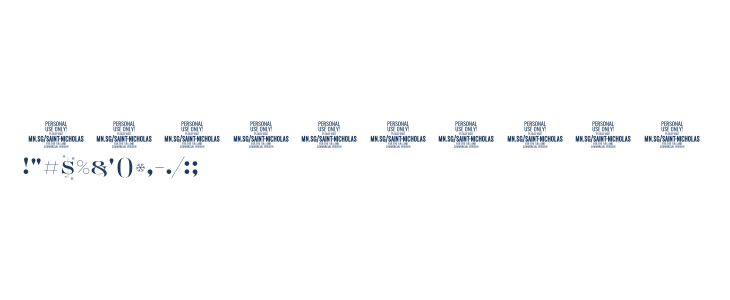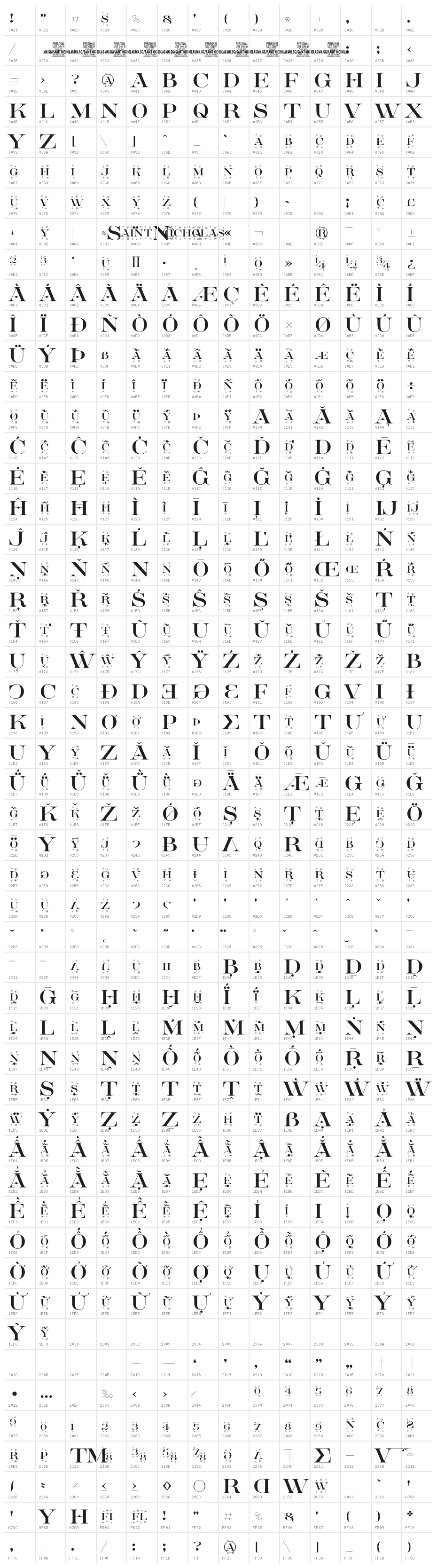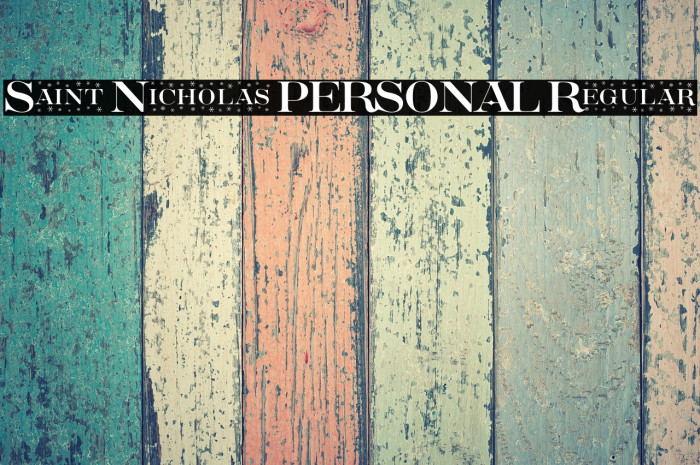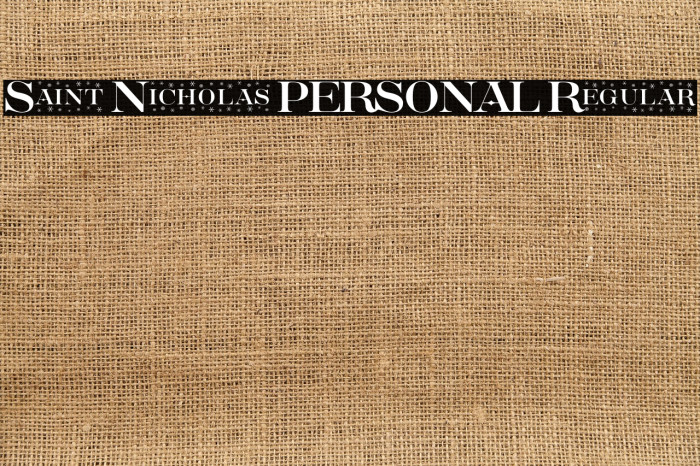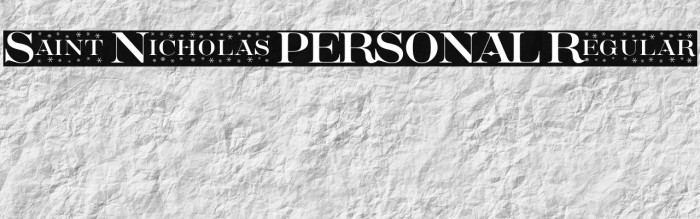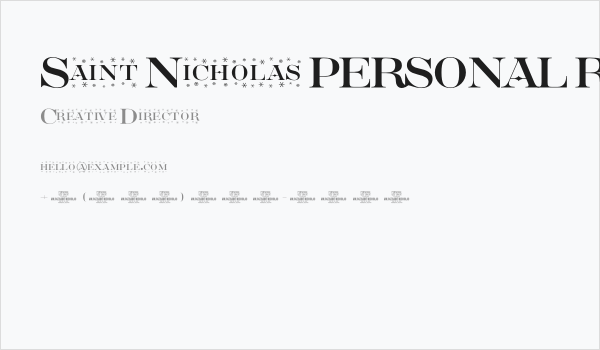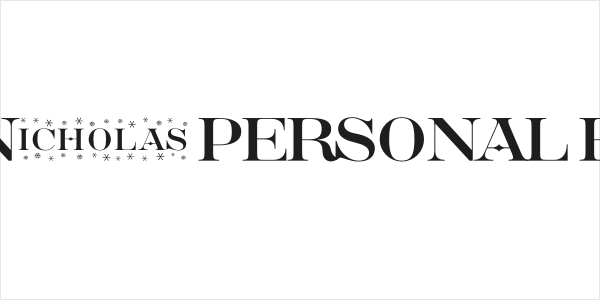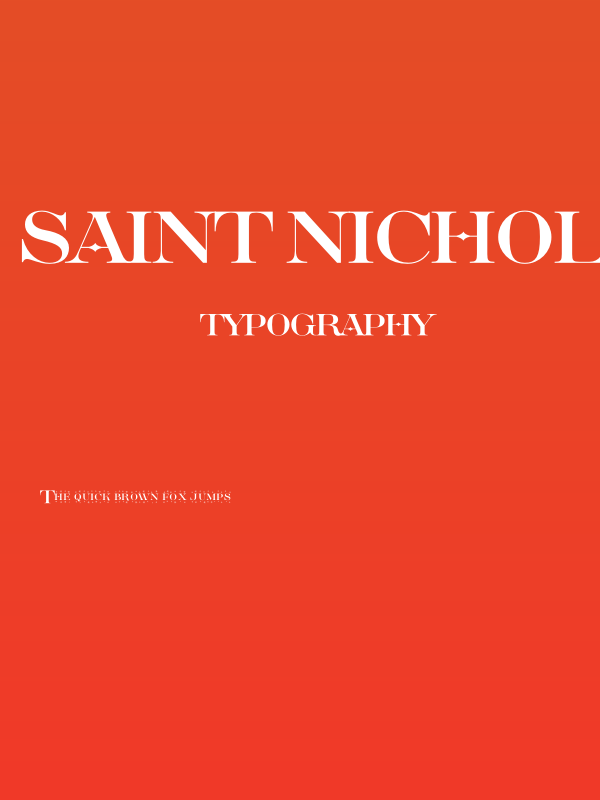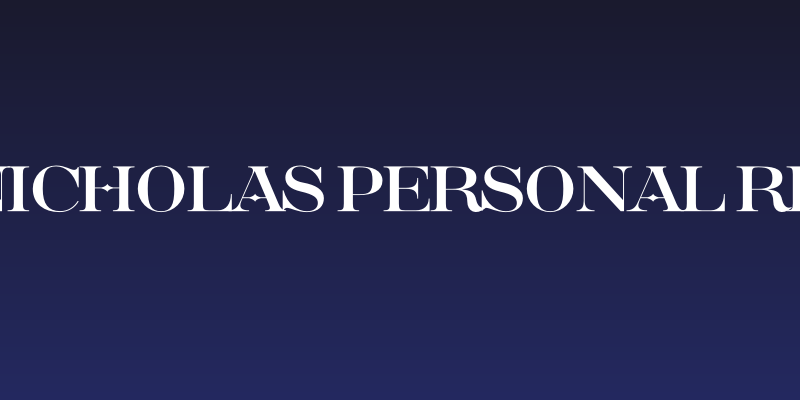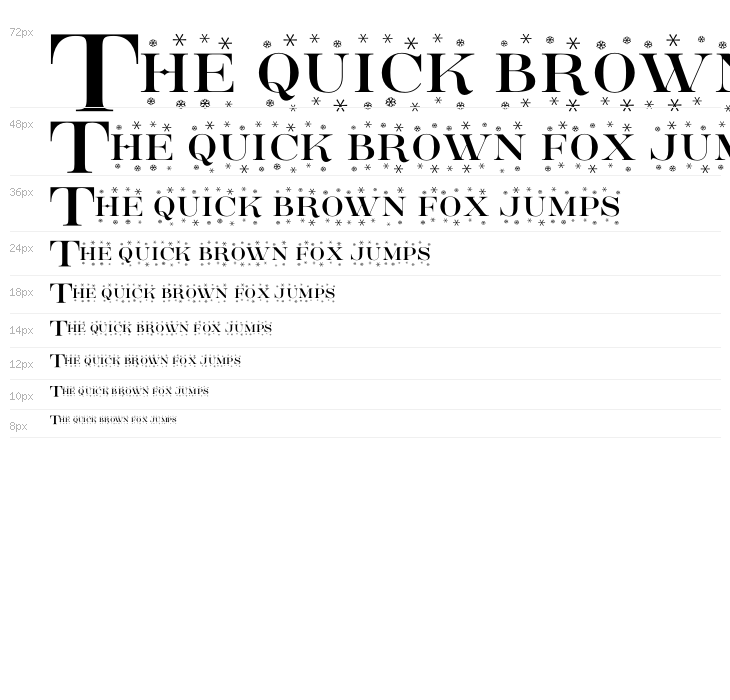
Saint Nicholas PERSONAL Regular Font
Saint Nicholas PERSONAL Regular Description
This font features a bold and elegant serif style with high contrast between thick and thin strokes, giving it a classic and sophisticated appearance. The uppercase letters are prominently designed with sharp serifs and a strong vertical emphasis, while the lowercase letters maintain a consistent style that complements the uppercase. The numerals and special characters are crafted with the same attention to detail, ensuring a cohesive look across all characters. The decorative elements, such as the snowflake-like symbols, add a festive and ornamental touch, making this font suitable for holiday-themed projects.
| Overall Style | Classic, Decorative |
| Use Case | Headlines, Logos, Decorative text |
| Proposed Projects | Ideal for holiday cards, festive invitations, branding for seasonal products, and decorative headlines. |